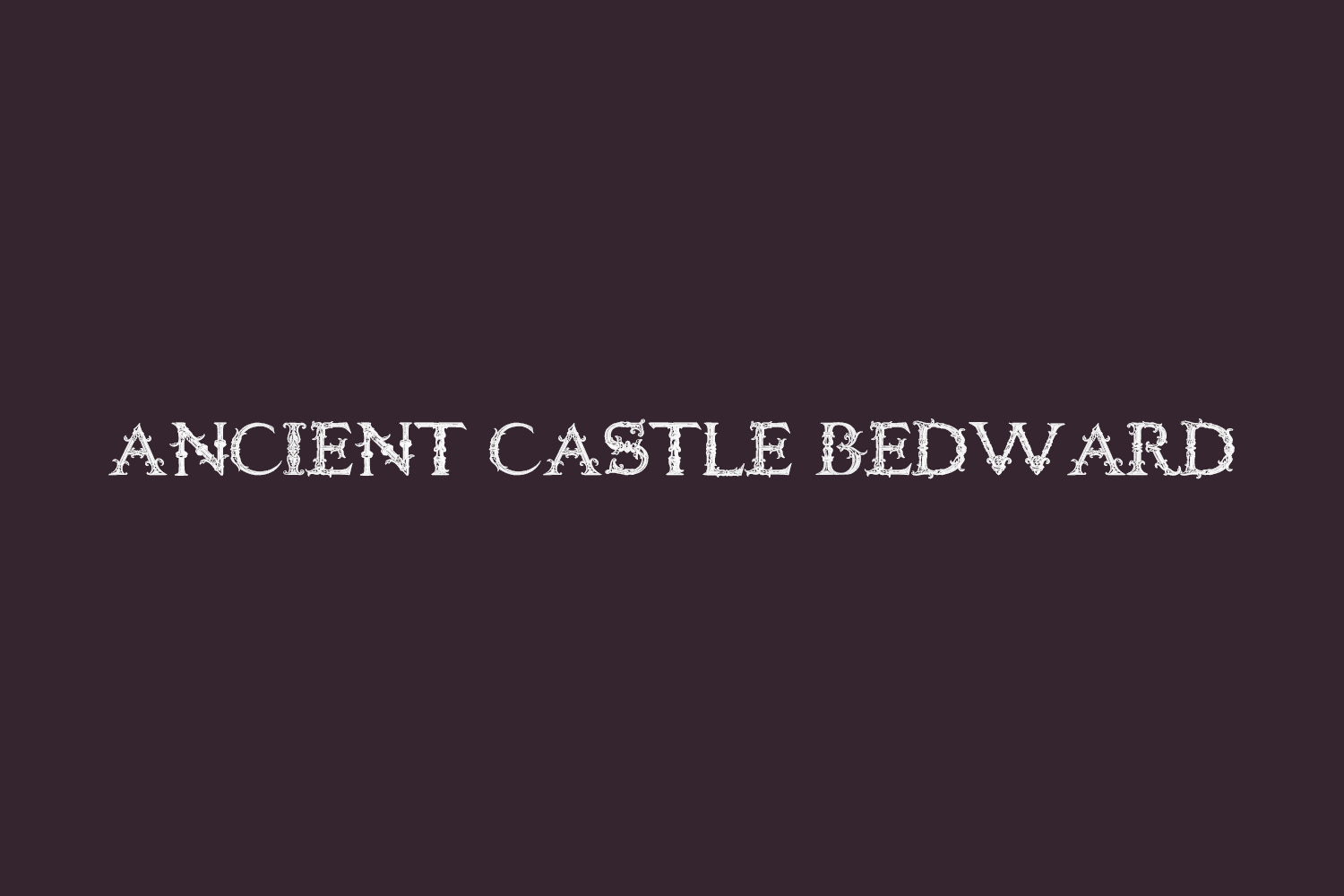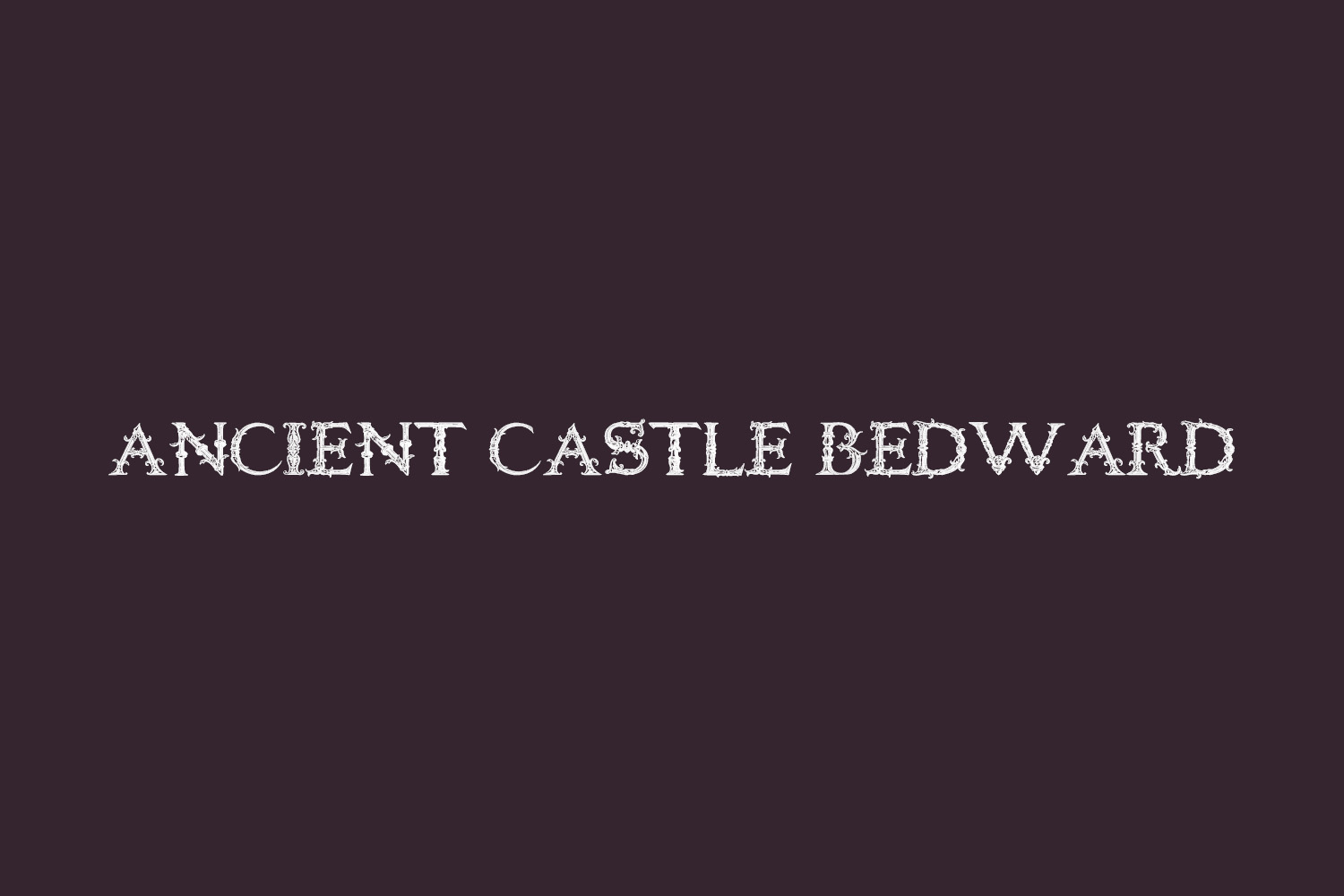
Ancient Castle Bedward Free Font is based on a public domain set of letters. Some new glyphs were also drawn to complete the full English alphabet consisting of 26 capital letters. Ancient Castle Bedward Free Font was designed by Creazilla is a demo and free for personal use only. Please purchase the full version for commercial use.